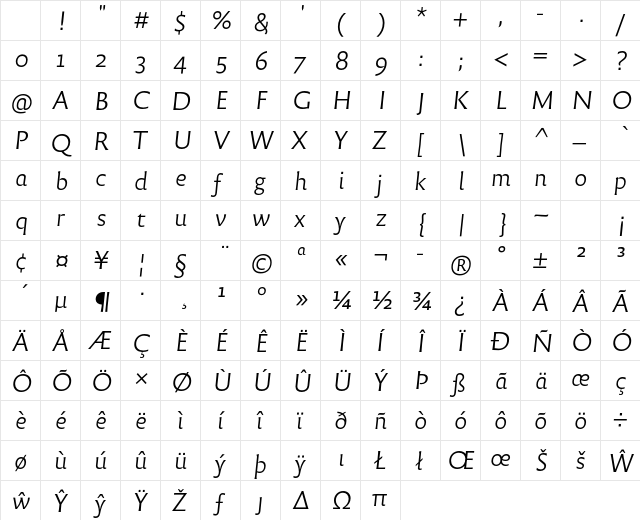
Complete Reforma 2018 Blanca Italica glyph index. Displaying only characters natively supported by Reforma 2018 Blanca Italica font.
Reforma 2018 is a composed and adaptable typeface that performs quietly and consistently across a wide range of design contexts. The slanted form adds forward momentum and visual energy.
Pro Tip: Use Reforma 2018 for emphasis, pull quotes, and subheadings where its slanted energy can add rhythm to the layout.